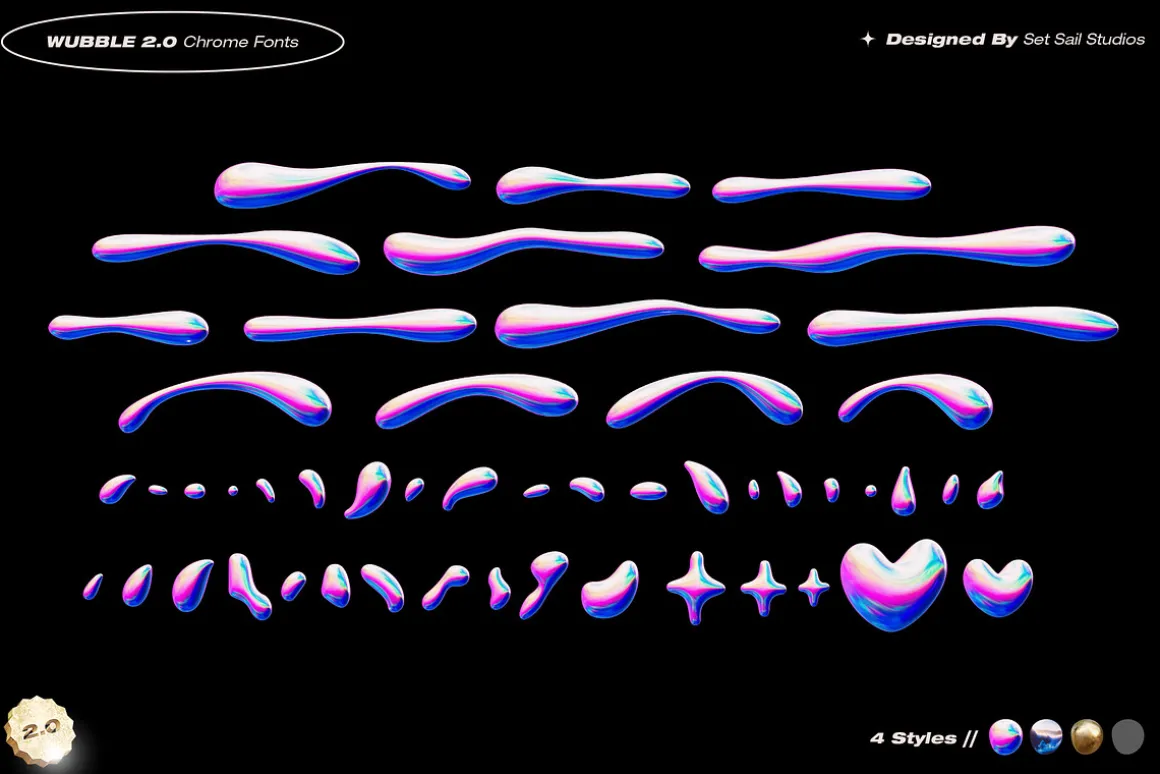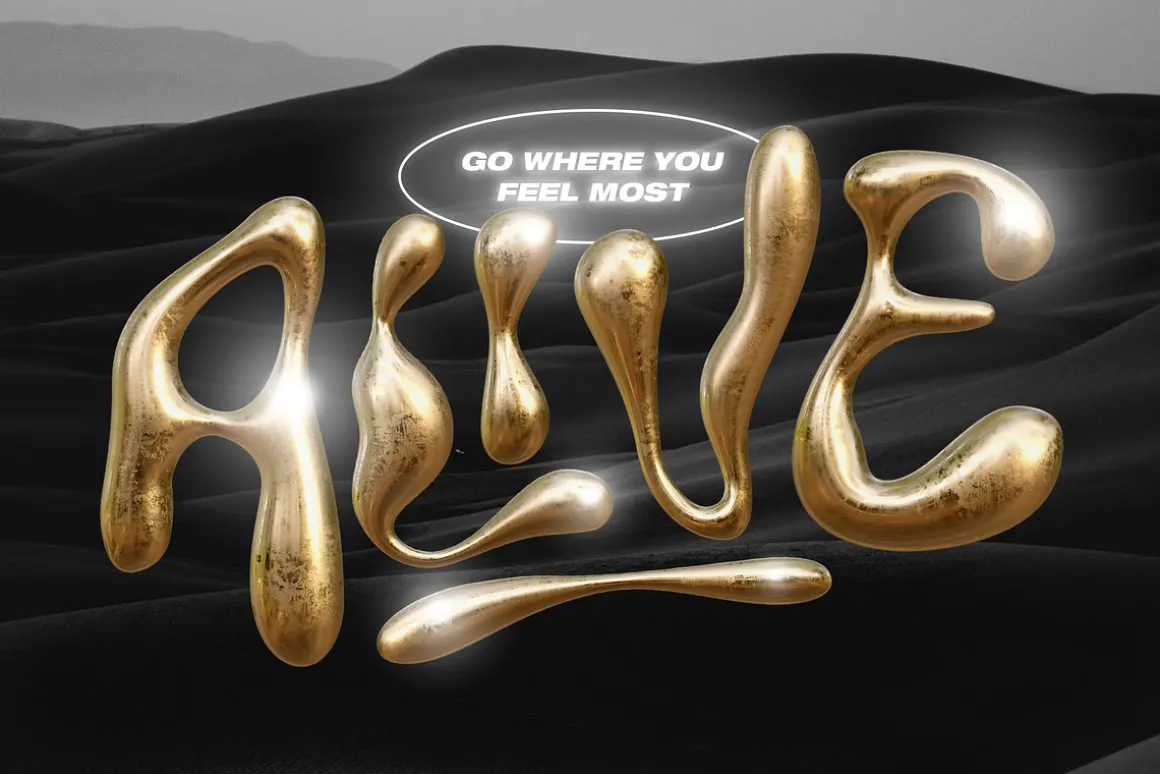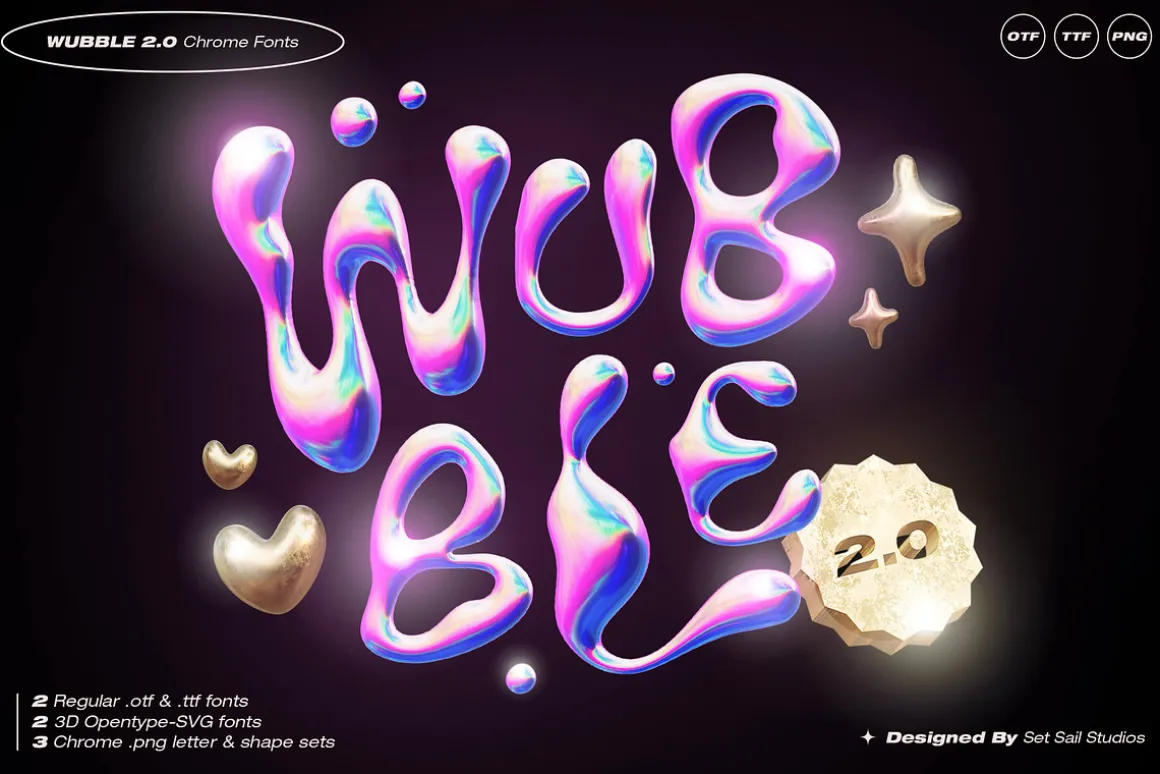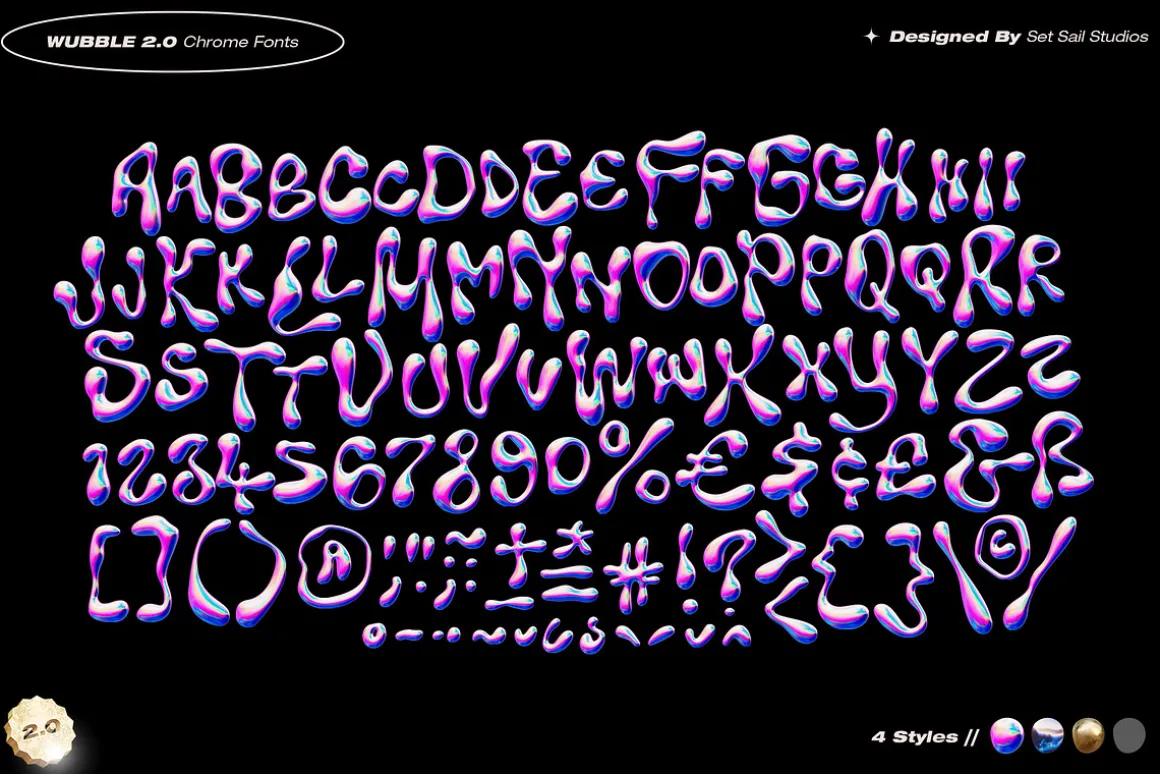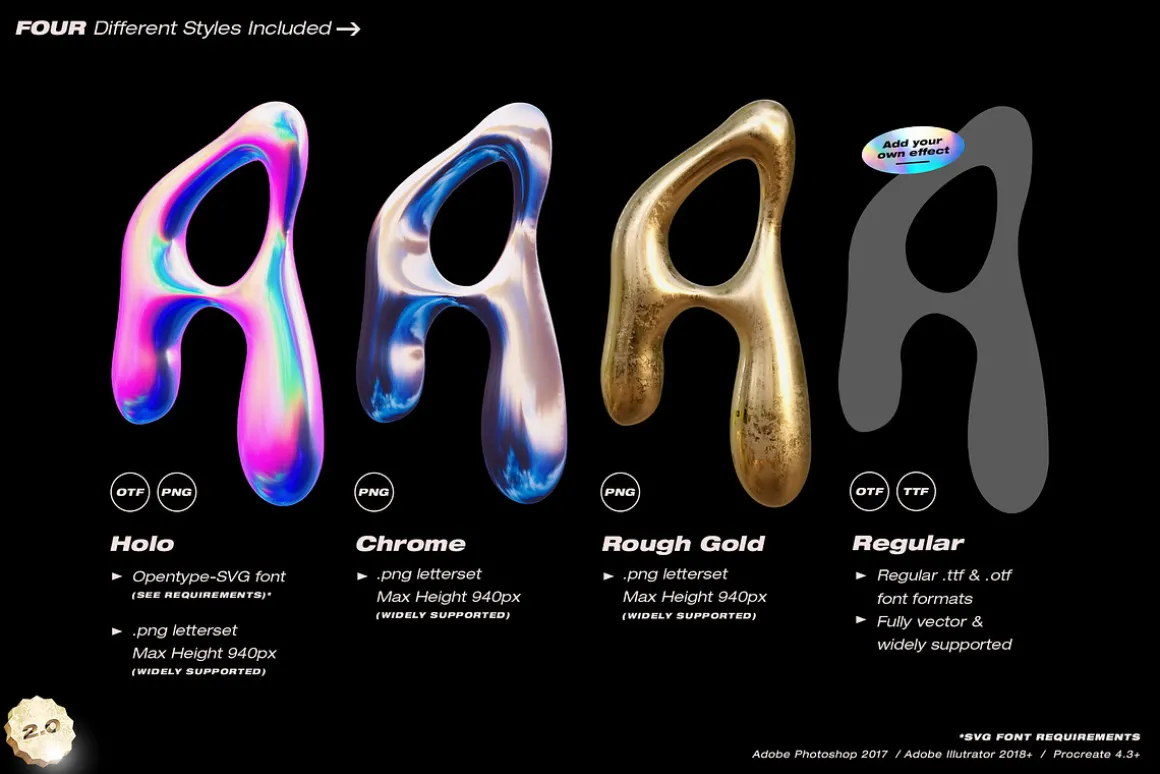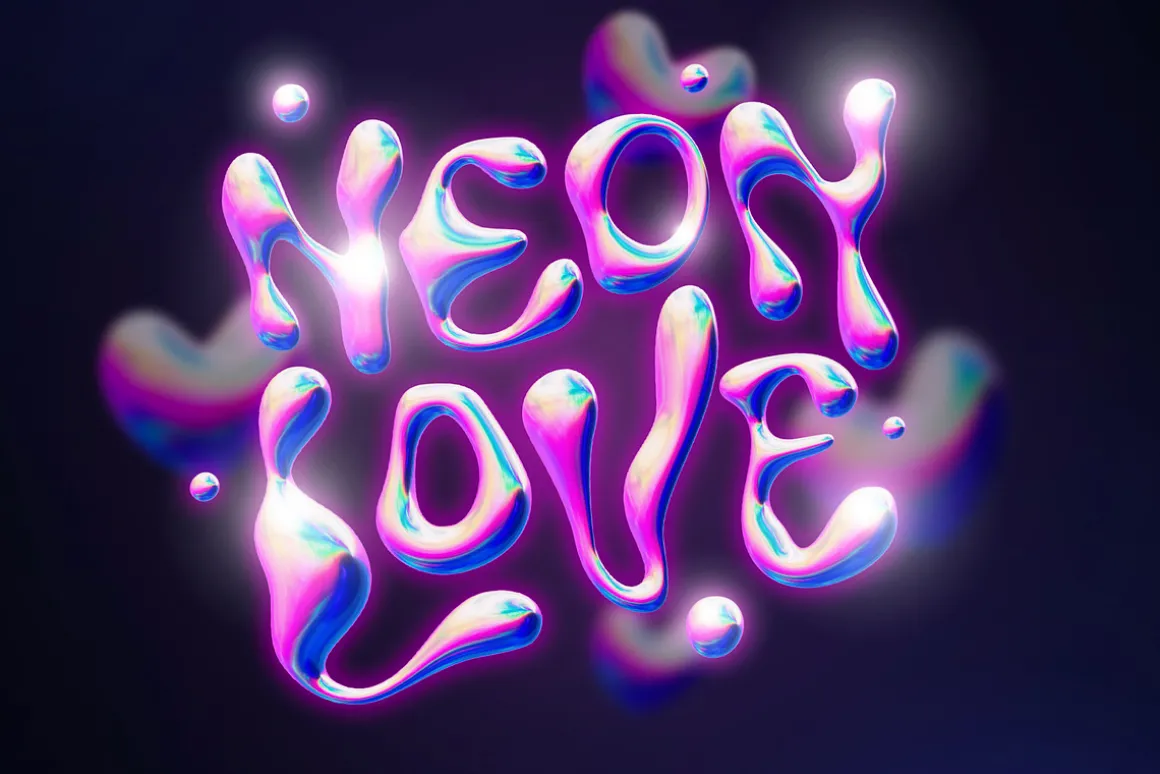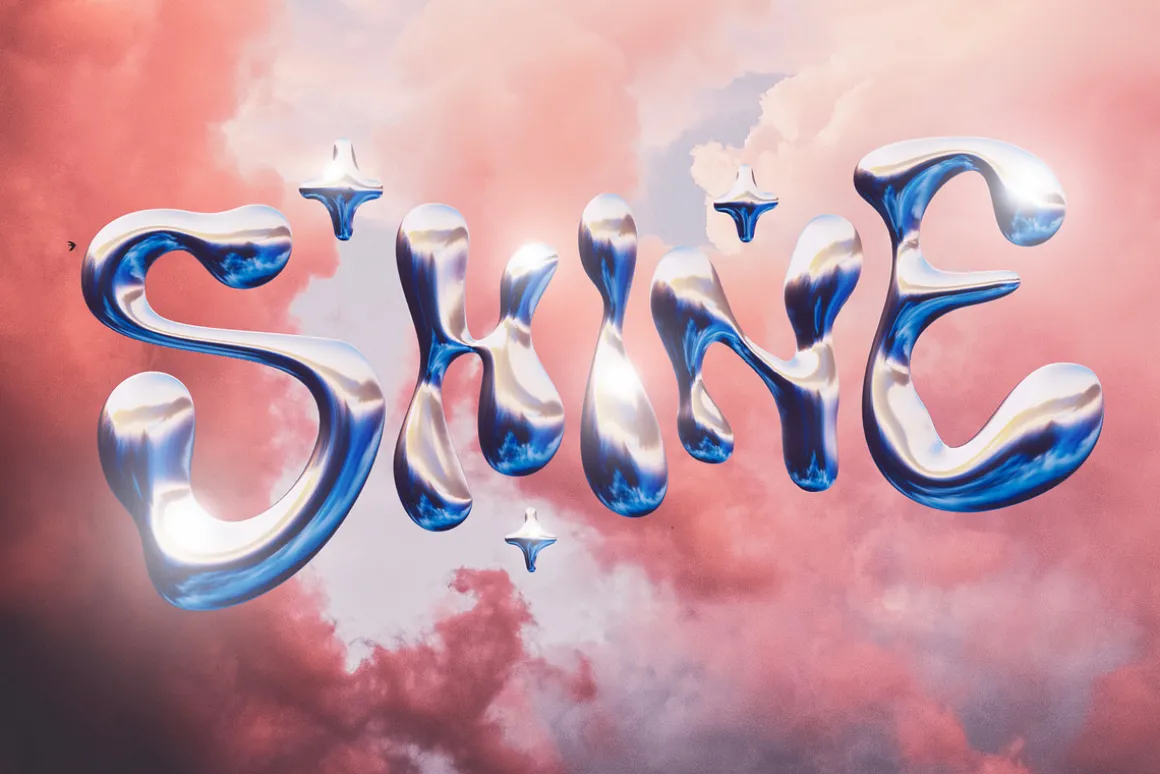
The Wubble font is back with some more 3D lettered goodness, this time with 3 brand new ultra-realistic textures! Introducing Wubble 2.0! A set of 2 SVG fonts, 2 Regular OTF fonts, and 3 sets of .png characters in 3 new styles—Glossy Chrome, Rough Gold, and Holographic. Ideal for huge impact display text with a Y2K inspired aesthetic.
The Wubble 2.0 character sets include a full set of upper and lowercase characters, including numerals, punctuation, and multilingual support. It also includes a set of 50 swashes and shapes to compliment your typography.